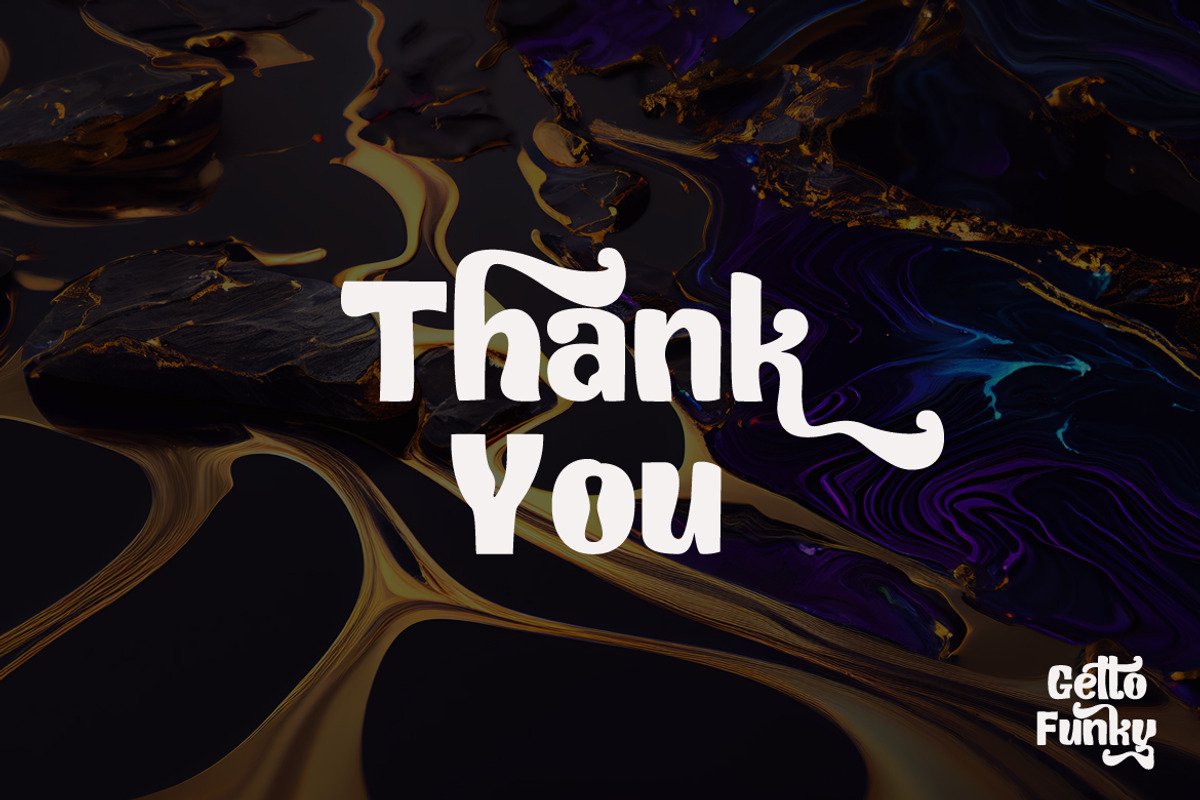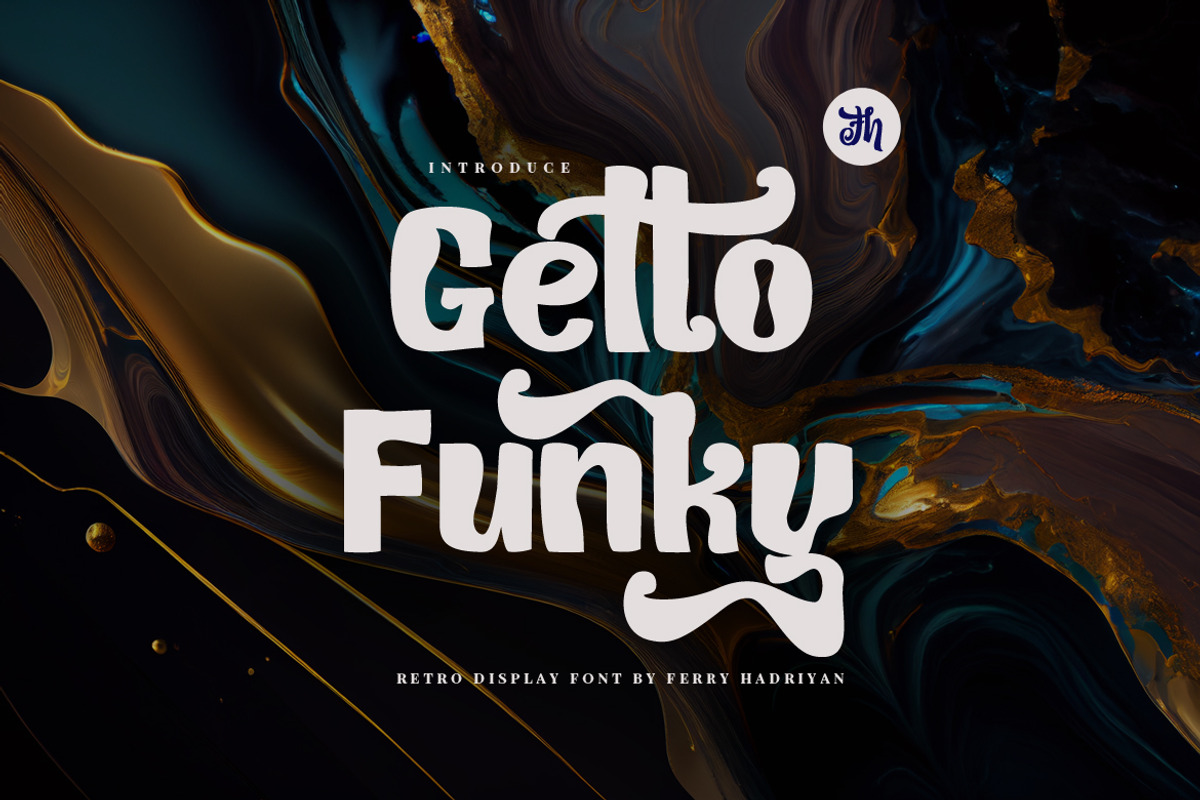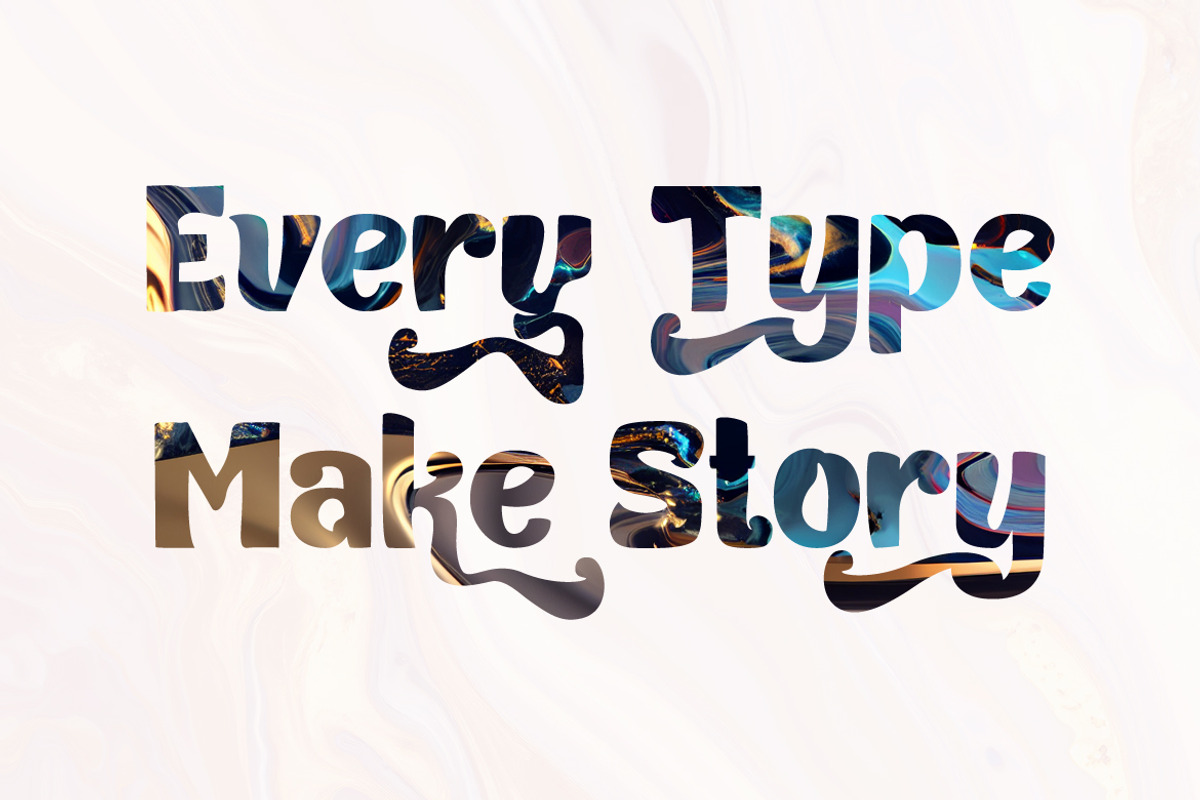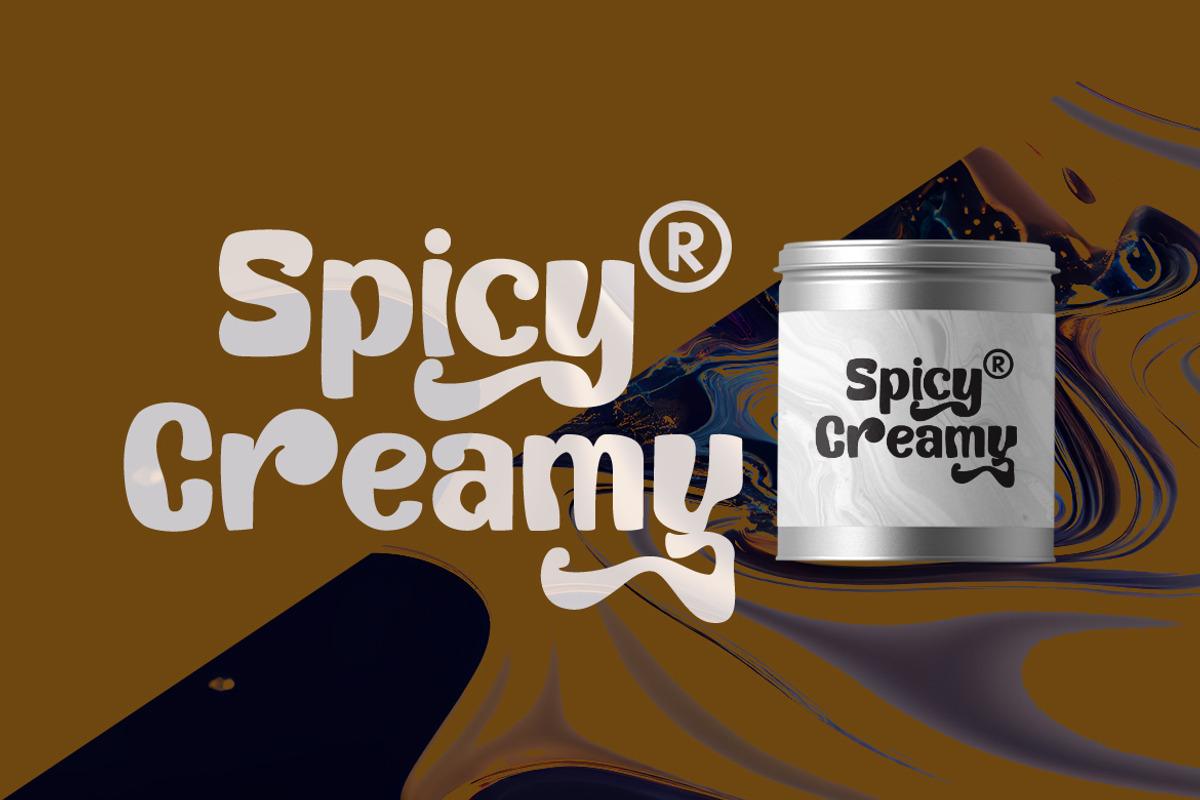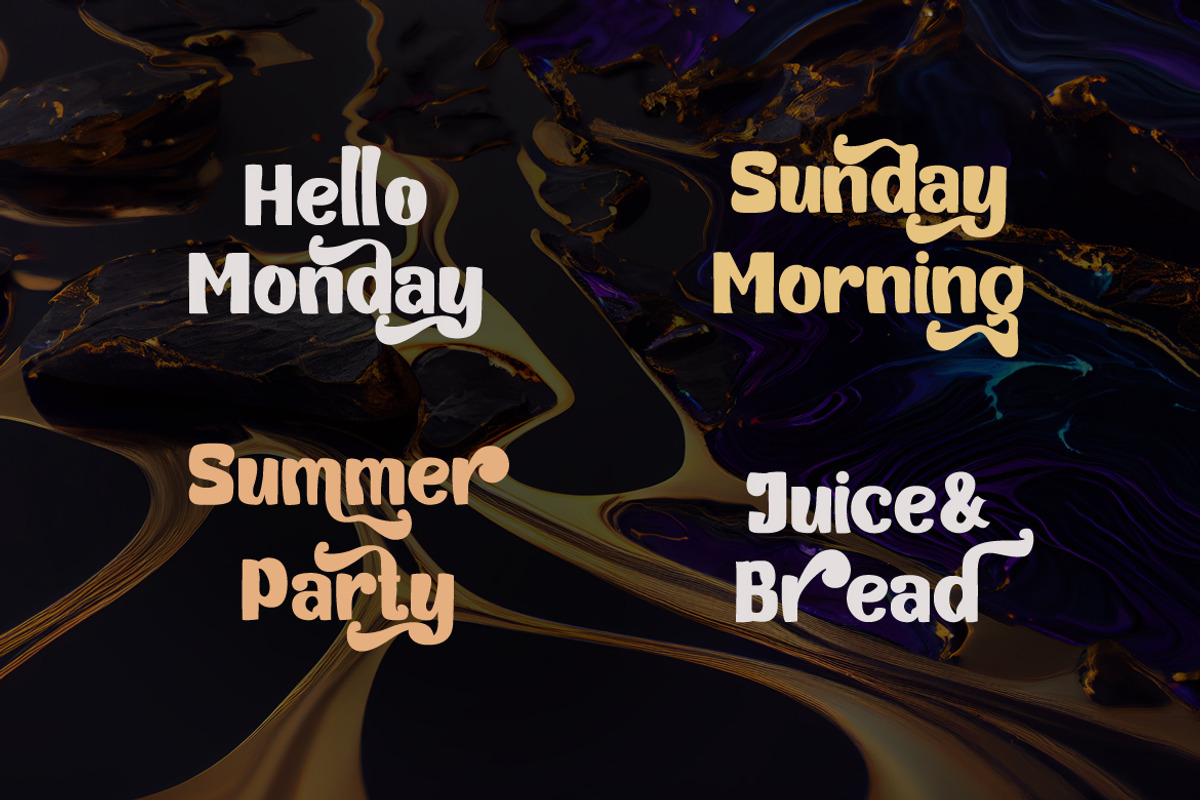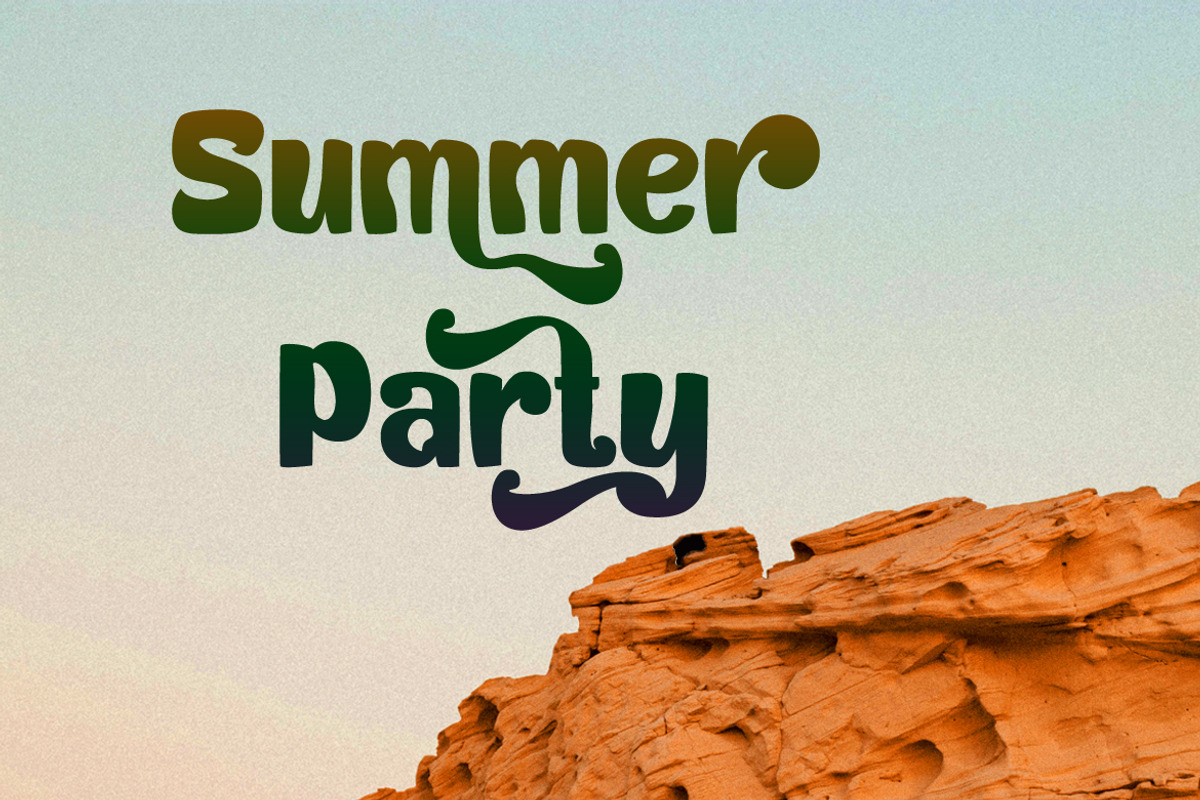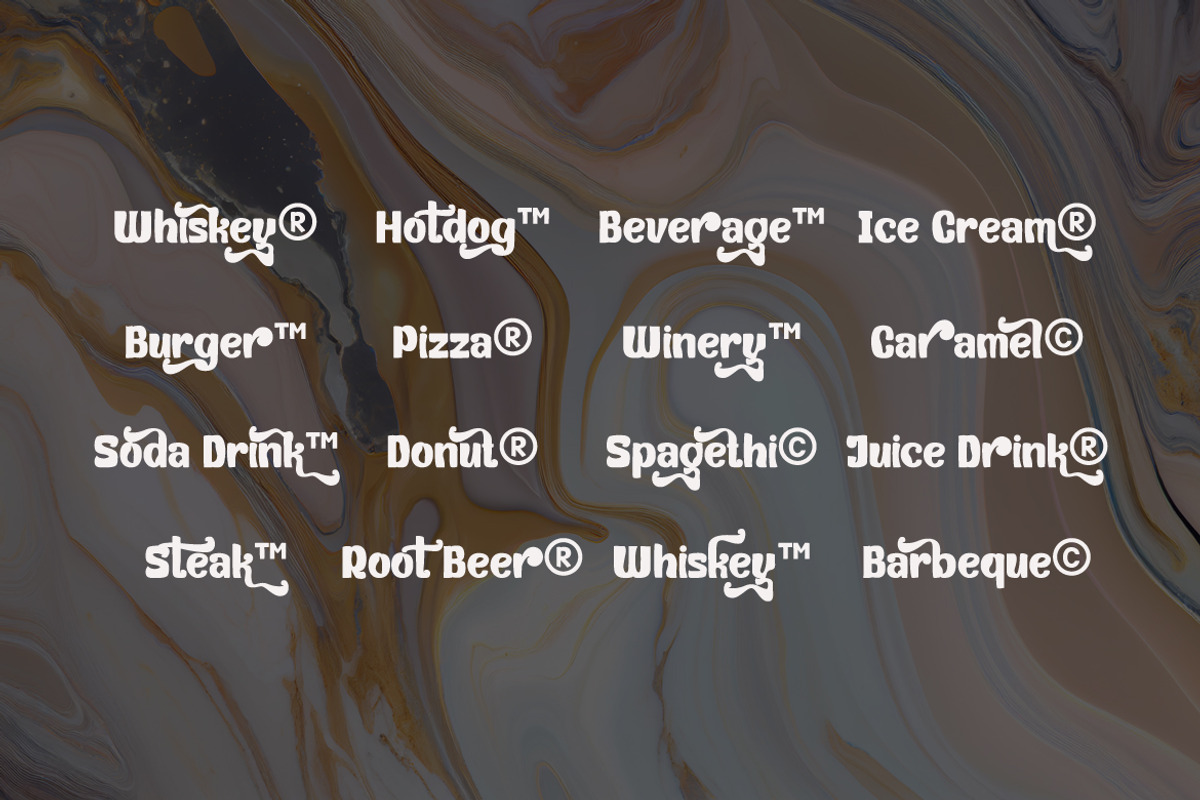
Getto Funky - Display Font
Getto Funky is display font with fun retro style, with swashes on OpenType feature include of the font. Suitable for design, element design, event, logo, and awesome work, etc...
All Standard Character, Symbol, Multilanguage, Ligature, Stylistic Set, and Swashes.
Unique style fonts